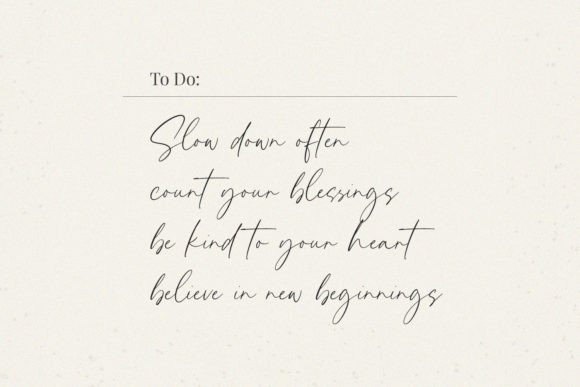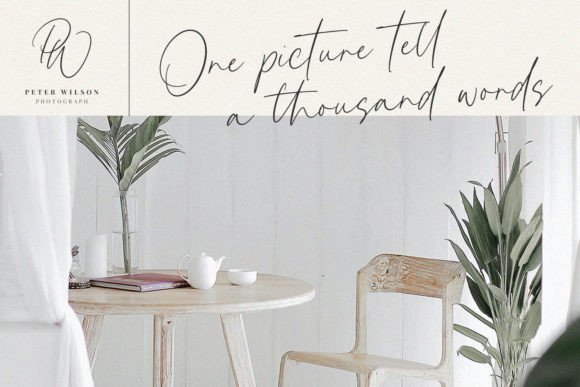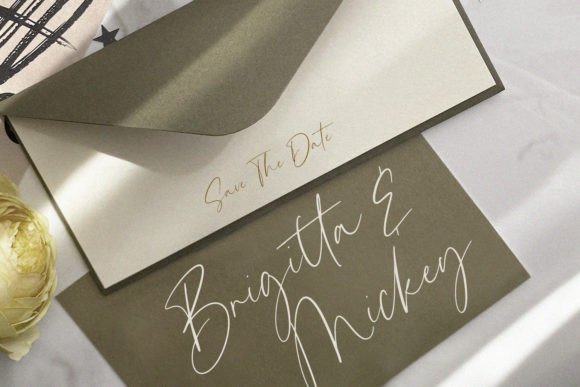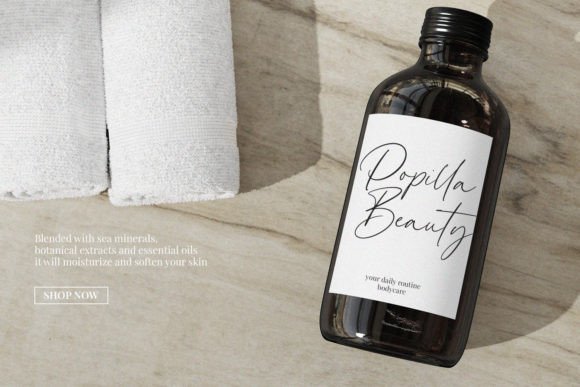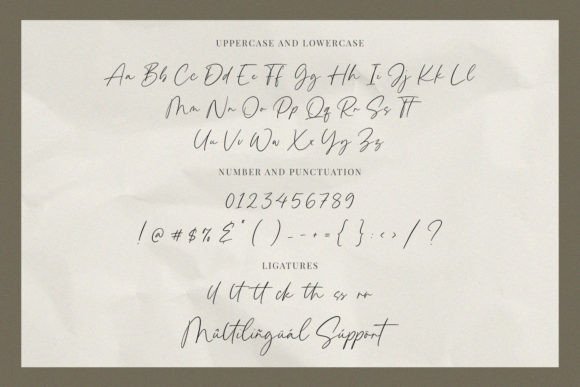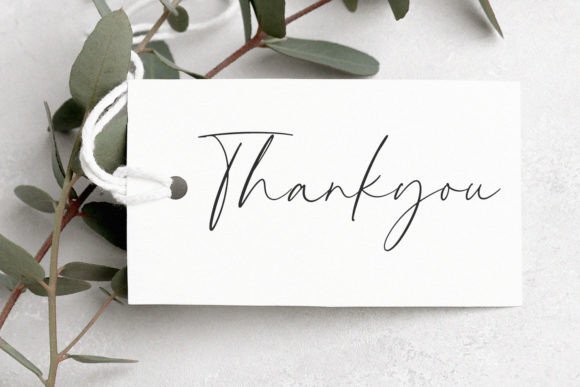
Introduction to Aesthetica Font
Have you ever stared at a blank canvas, struggling to bring your creative vision to life? You envision a beautiful script that perfectly captures the essence of your design project. For designers, finding the right font can be a game-changer, elevating their work from good to great. This is where Aesthetica Font comes in – a stunning, high-quality script font designed to make your creative project shine.
Whether you’re working on a branding project, product packaging, or magazine layout, Aesthetica Font is the perfect design resource to add a touch of sophistication and elegance. With its sleek, modern look and transparent background, this font is ideal for creating eye-catching visuals that stand out from the crowd. Plus, it’s available for free download, making it an accessible and valuable addition to any designer’s toolkit.
Key Features of Aesthetica Font
- High-quality design: Aesthetica Font offers a sophisticated and elegant look perfect for creative projects, making it an ideal design resource.
- Transparent background: This feature allows for seamless integration with any background, giving users flexibility in their design.
- Unique script style: Aesthetica Font features a distinctive script style, adding a touch of elegance to any creative project.
- Supports various languages: Aesthetica Font supports a wide range of languages, making it a versatile design resource for global projects.
Honest Review: Aesthetica Font
I recently stumbled upon the Aesthetica Font while searching for a design resource for a creative project. The free download was a great find, and I’m excited to share my thoughts on this font.
- Clean and modern design aesthetic
- Perfect for titles and headings
- Supports a transparent background, making it versatile for use on any background
- High quality and well-crafted font
The Aesthetica Font is a great addition to any designer’s toolbox. It’s perfect for creating a sleek and modern look for any creative project.
- Limited character set, which may not be suitable for longer texts
- No italic or bold styles available
Overall, the Aesthetica Font is a great find, but it’s essential to consider its limitations before using it for a design project. With a little creativity, it can be a fantastic design resource.
I’m impressed with the Aesthetica Font’s clean design and versatility. While it has some limitations, it’s a great addition to any designer’s toolbox, and I’ll definitely consider using it for future creative projects.
Aesthetica Font is a versatile design resource that can be used in a variety of creative projects, including social media graphics, flyers, business cards, and more. Its high-quality design and transparent background feature make it a great choice for designers and non-designers alike.